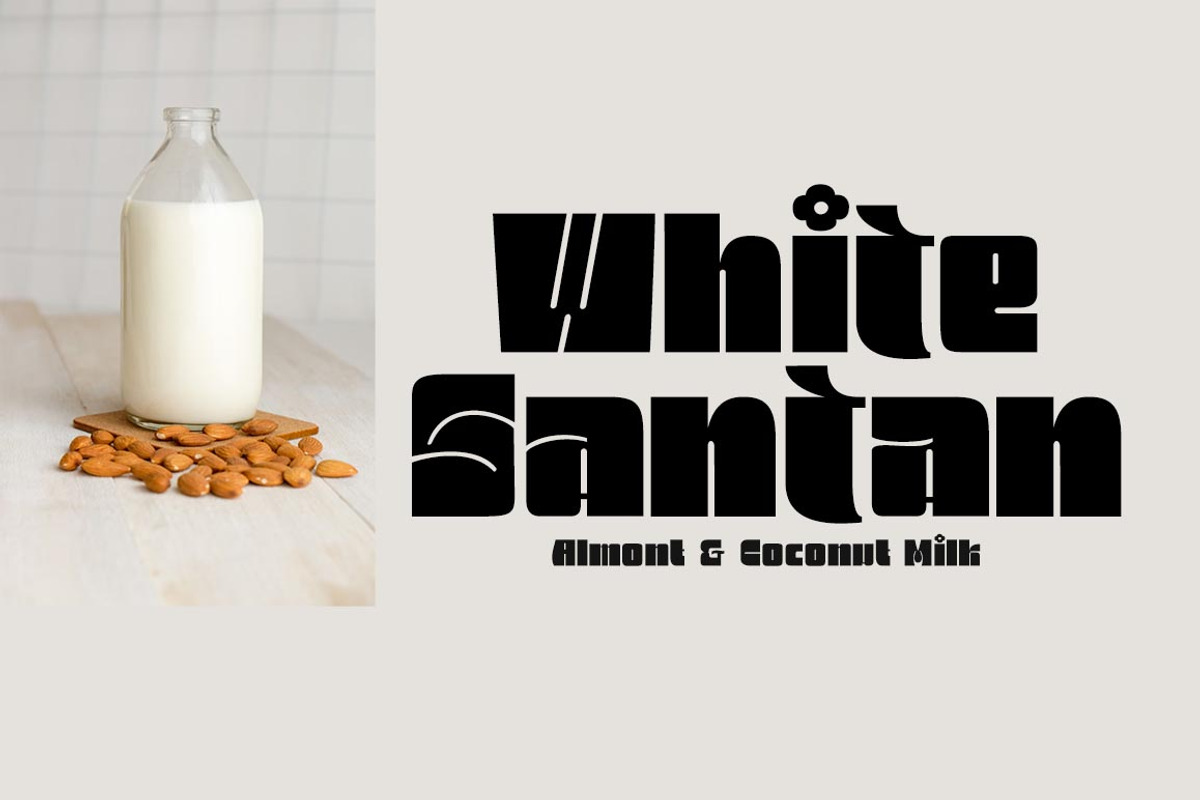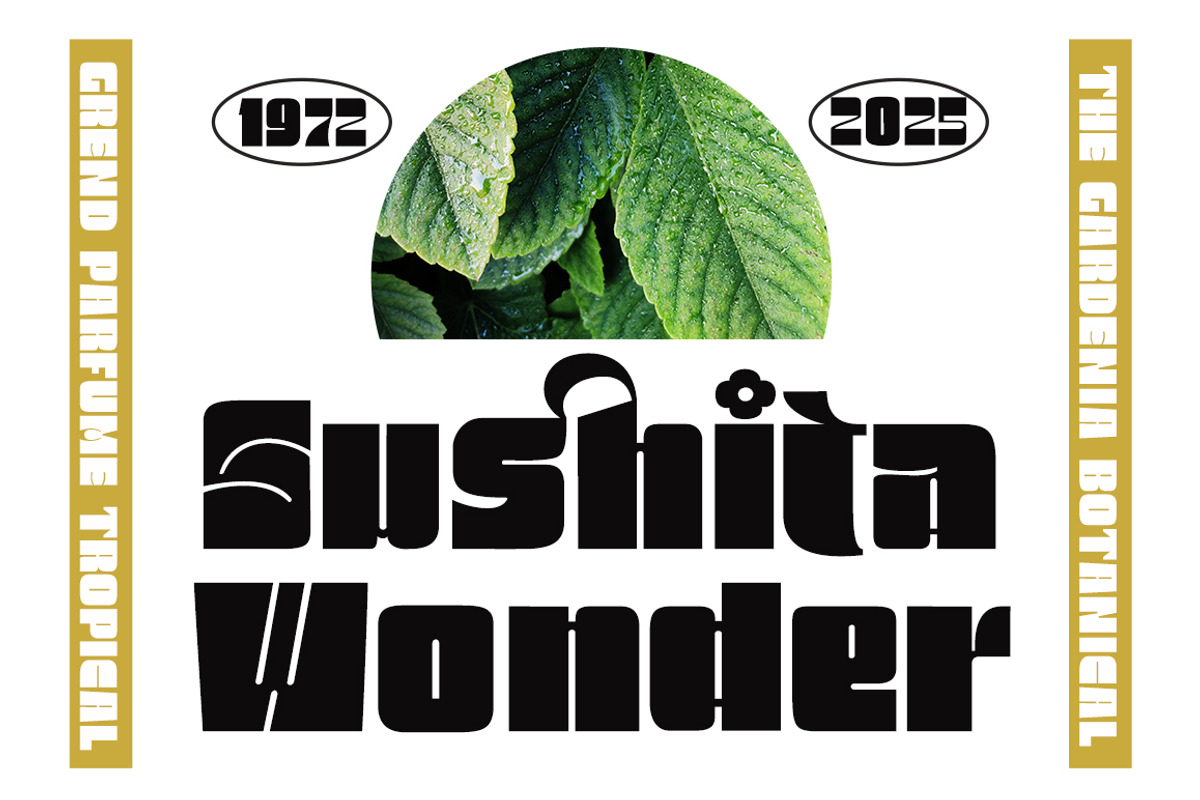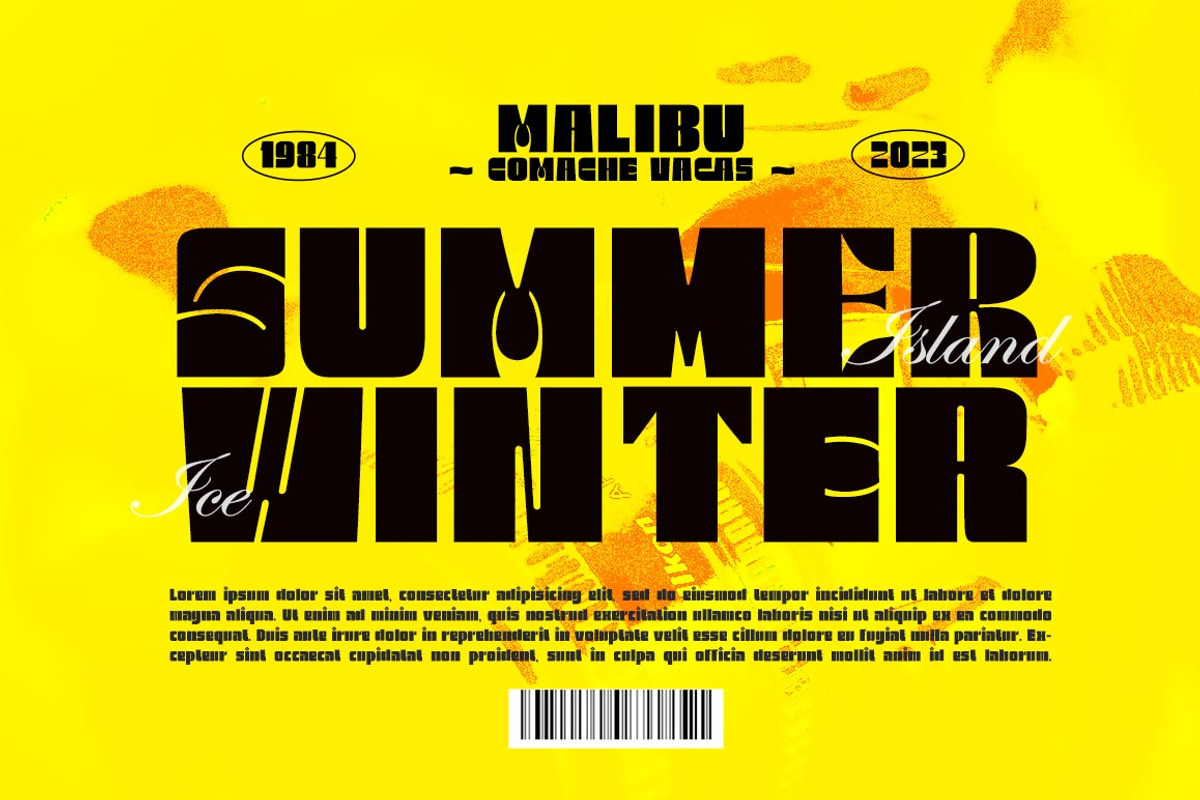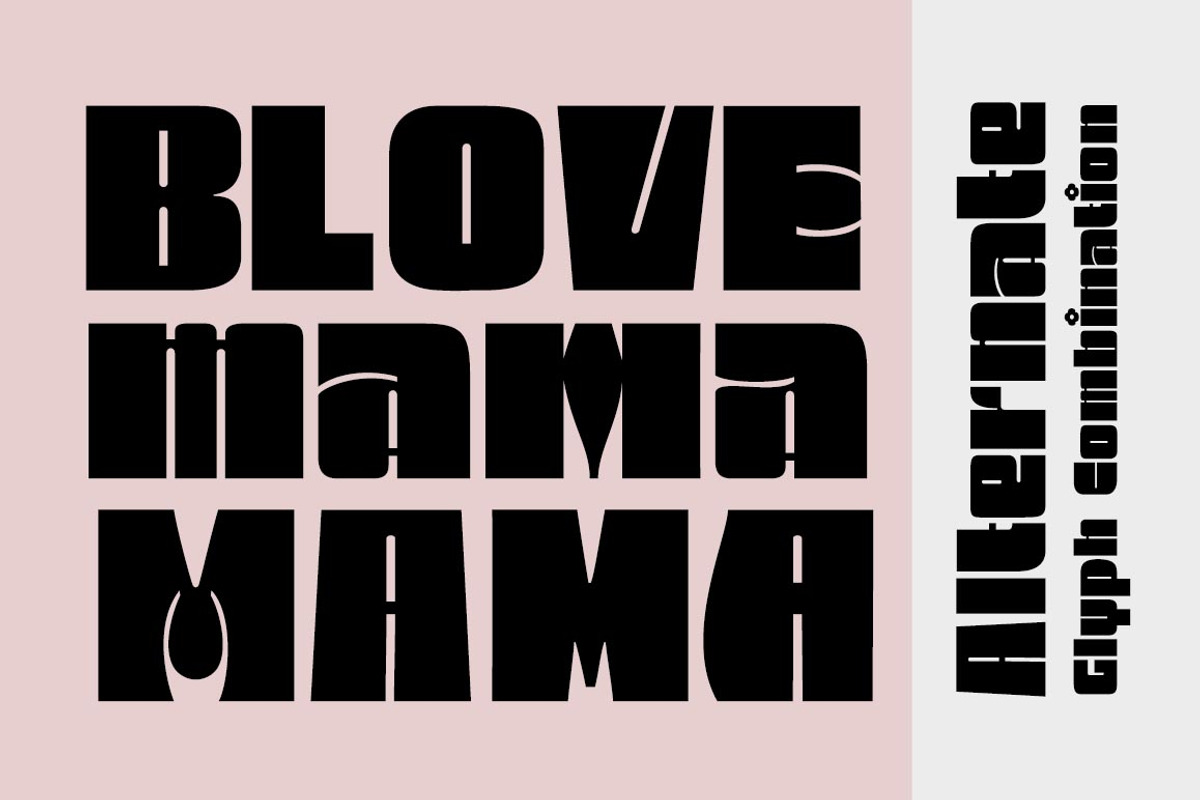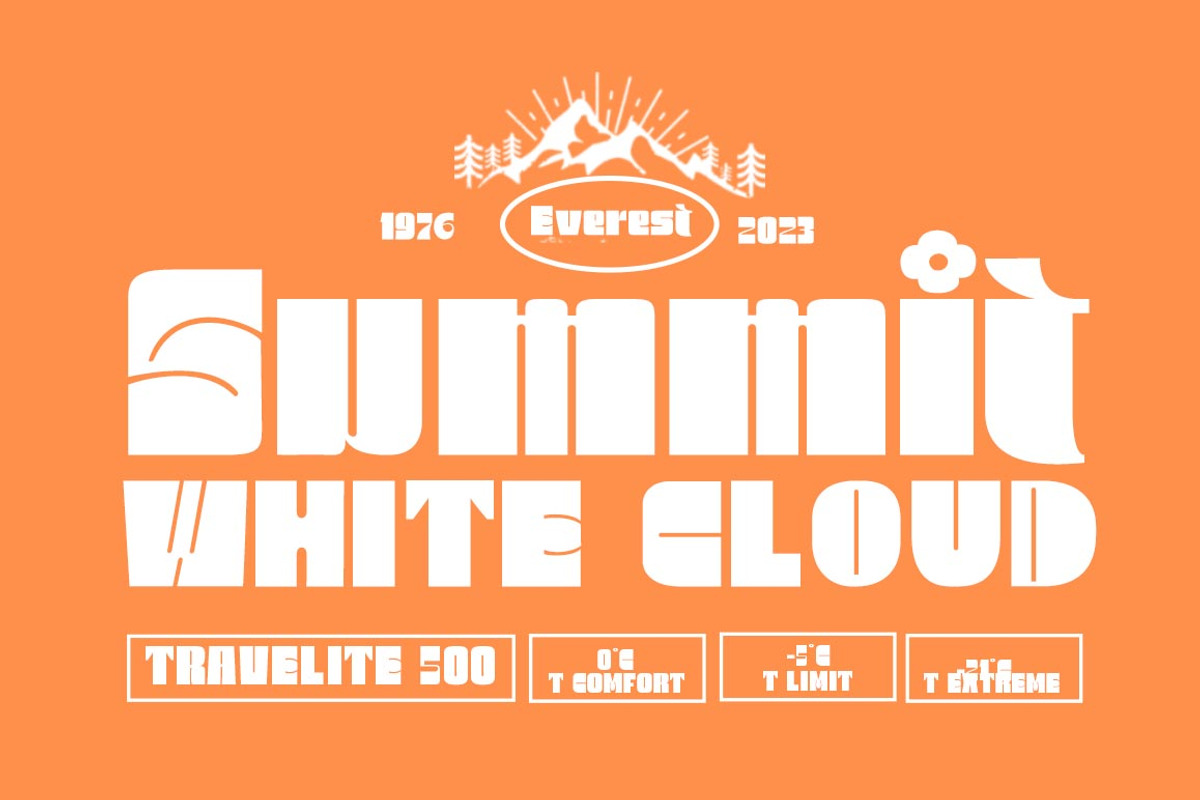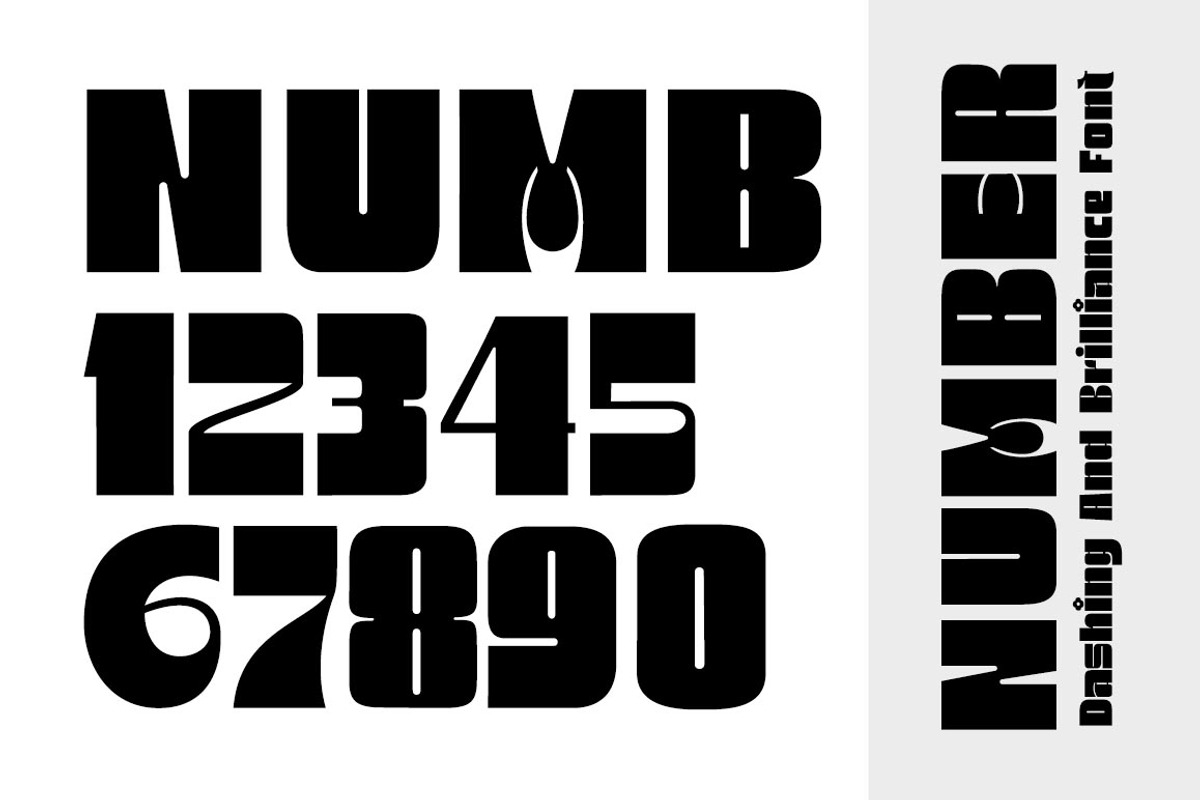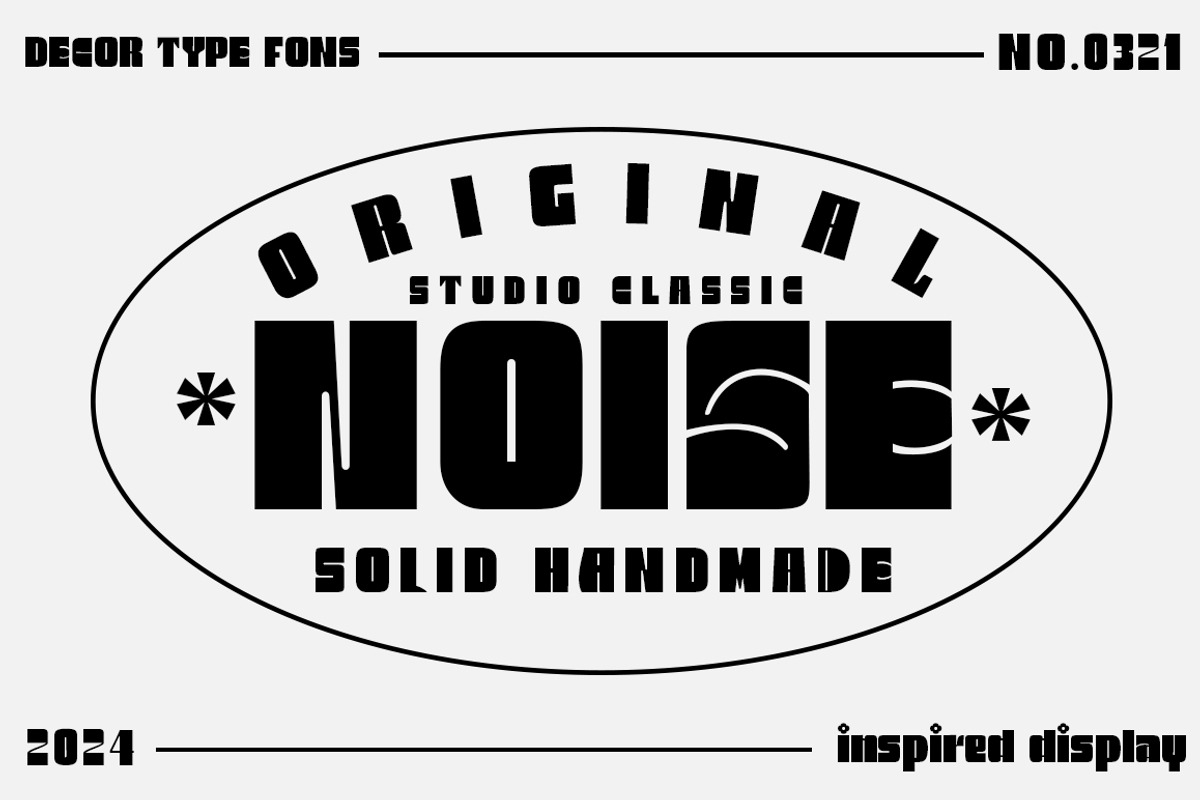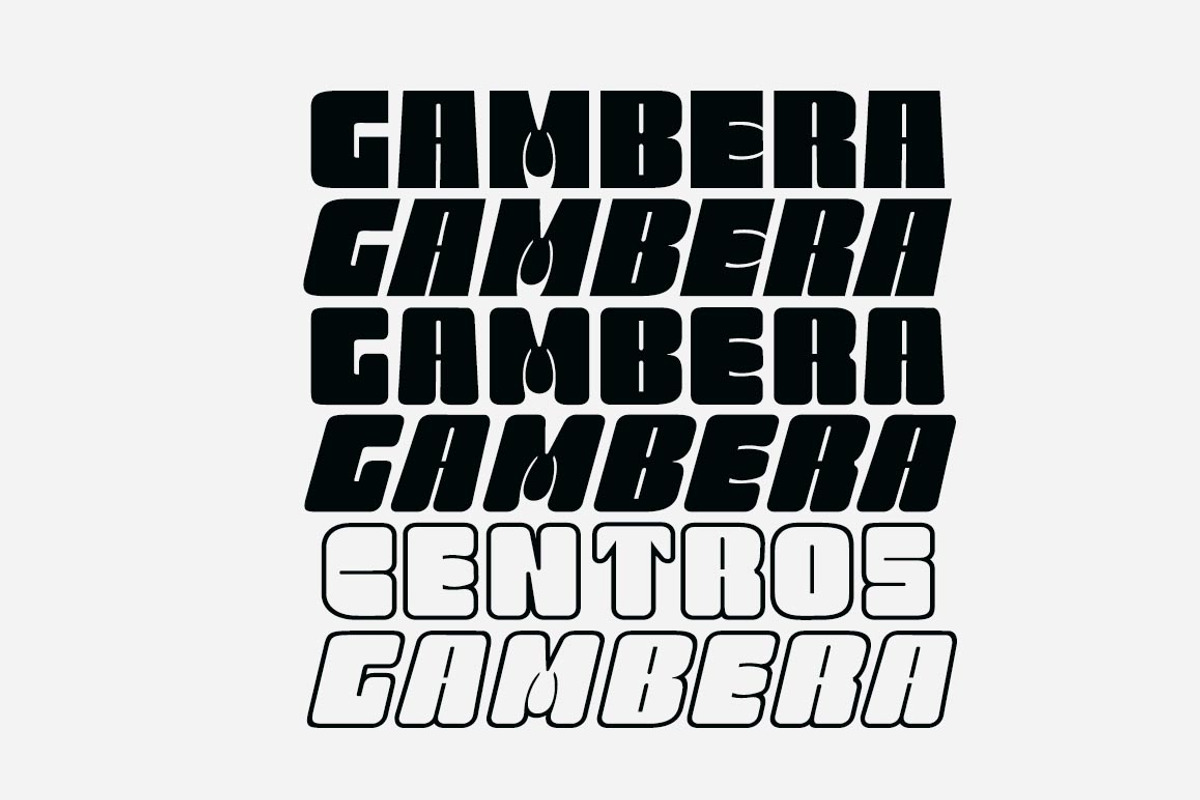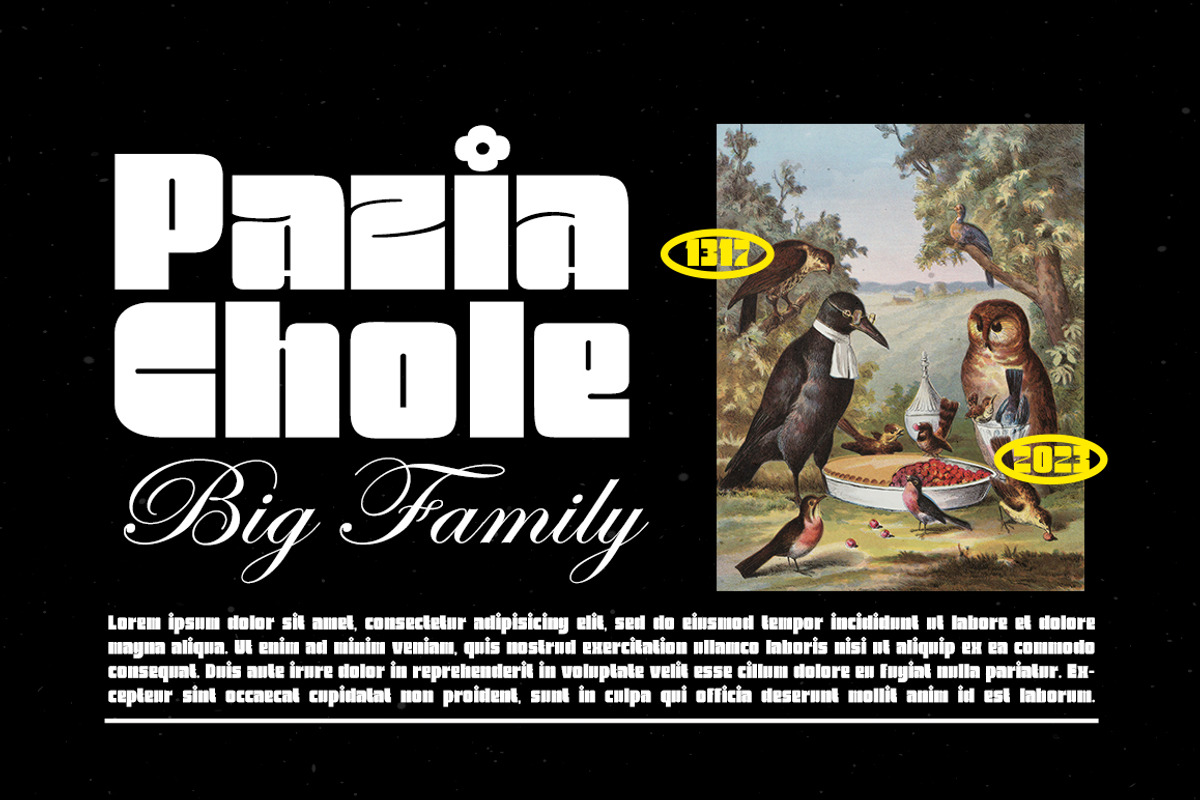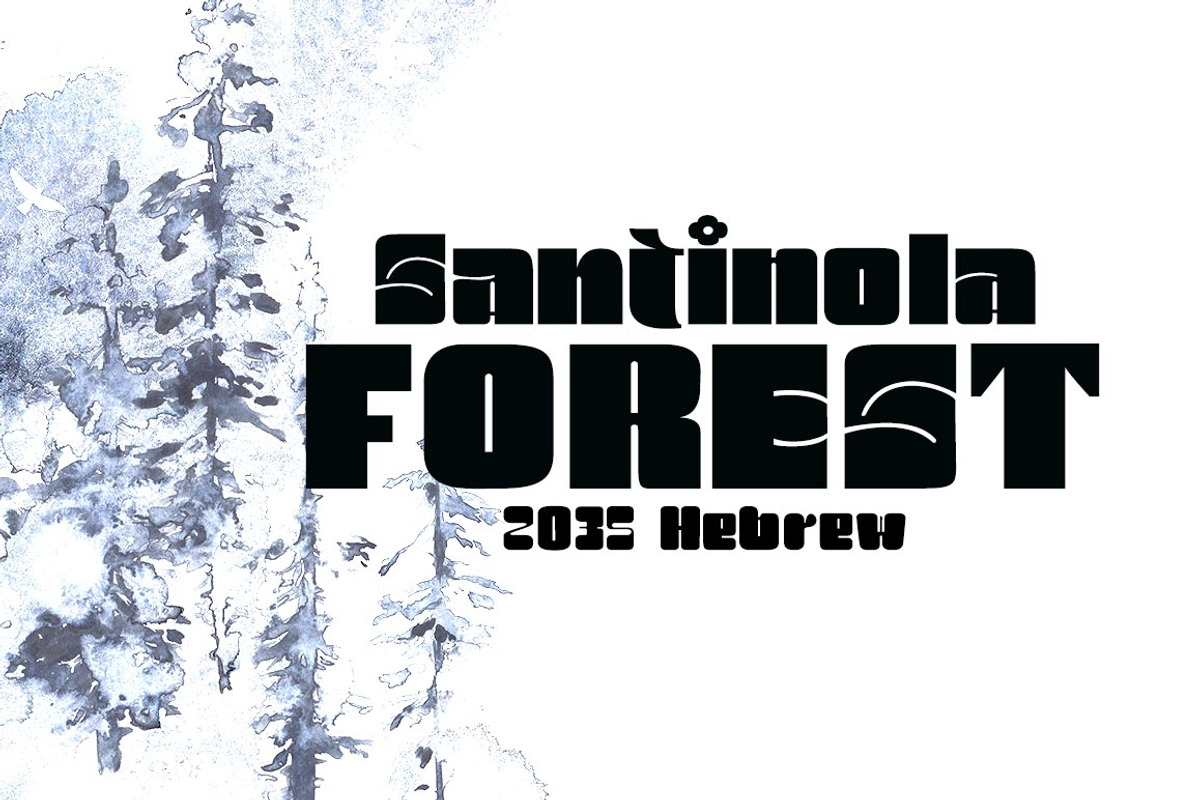
Malista
Malista is a large yet elegant Family display font. The unique and creative character according to today's style will be very interesting for you to create any design work with a classy model while still maintaining a calm and classy style to look at.